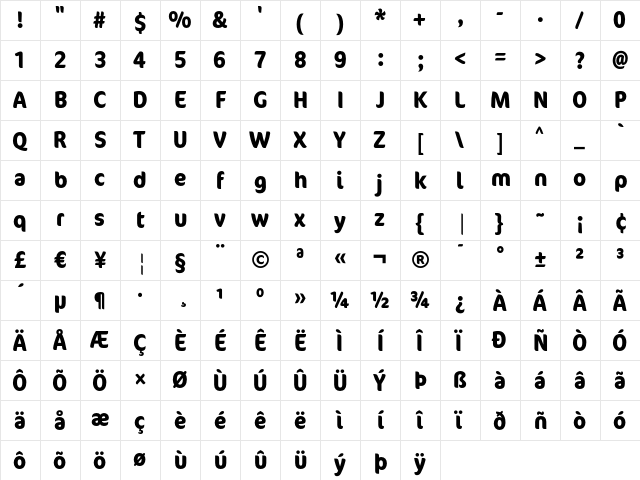
Cocon BoldCondensed
Design Context for Cocon Typeface
Cocon takes a measured approach to typography — its balanced proportions and neutral character make it a reliable workhorse for both digital and print work. Its bold stroke weight gives it real presence on the page. The condensed width makes it efficient for tight spaces without sacrificing legibility.